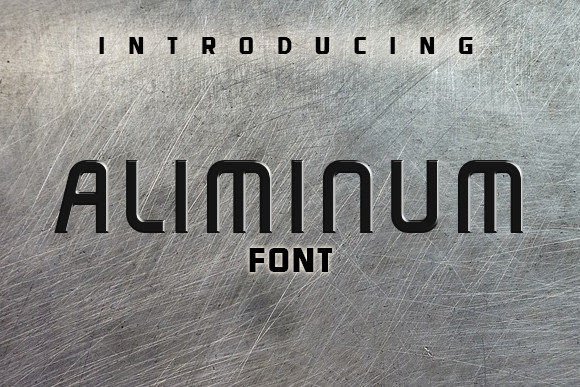
The Ultimate Guide to Aluminum Font: Elevate Your Designs with Style
I’ll never forget the time I was working on a project for a trendy clothing brand, and I just couldn’t find the right font to match their vibe. The client wanted something modern, stylish, and eye-catching, but everything I tried seemed either too bland or too over-the-top. That’s when I stumbled upon the Aluminum font – a game-changer for any designer looking to add a touch of techno chic to their work.
With its sleek lines, round corners, and futuristic feel, Aluminum instantly captured the essence of the brand. I used it for banners, t-shirts, and flyers, and the response was overwhelmingly positive. In this article, I’ll share my love for this gorgeous display font, its features, and how to make the most of it in your designs.
An Honest Review of Aluminum Font
- ✅ Unique Style: Aluminum’s blend of techno and modern elements makes it stand out from more traditional fonts.
- ✅ Versatility: It’s perfect for a wide range of projects, from digital displays to print materials.
- ✅ Easy to Read: Despite its futuristic look, Aluminum remains clear and legible, even at smaller sizes.
- ✅ OpenType Features: It comes with a range of OpenType features, including stylistic alternates and glyphs, allowing for even more customization.
While Aluminum is an excellent font, there are a few things to keep in mind:
- 🤔 Limited Use Cases: Due to its bold and futuristic style, Aluminum might not be the best fit for more traditional or formal projects.
- 🤔 Legibility at Small Sizes: While generally legible, Aluminum’s uniqueness might make it less readable at very small sizes or from a distance.
If you love Aluminum but want to explore other options, here are a few similar fonts and their personalities:
- Orbitron: A futuristic sans-serif with a strong, bold presence. Ideal for headlines and titles where you want to make a statement.
- Montserrat: A sleek, urban font with a geometric look. Great for designs that need a modern, yet approachable feel.
- Exo: A clean, techno font with a wide range of weights. Suitable for both digital and print projects, offering versatility.
- Raleway: An elegant sans-serif with a subtle geometric touch. Perfect for projects that require a bit of sophistication and style.
The Backstory of Aluminum Font
Aluminum was designed with the modern designer in mind – someone who wants to create bold, eye-catching designs without sacrificing readability. The font’s creator aimed to capture the essence of technology and innovation, making it perfect for brands and projects that want to appear cutting-edge.
Q: Is Aluminum suitable for body text?
A: While Aluminum is stunning for headlines and titles, it’s not typically recommended for body text due to its bold and futuristic style. For longer texts, a more traditional font might be more readable.
Q: Does Aluminum support OpenType features?
A: Yes, Aluminum comes with OpenType features, including stylistic alternates and glyphs, allowing for a high degree of customization in your designs.
Q: Can I use Aluminum on both digital and print materials?
A: Absolutely! Aluminum is versatile and works well on both digital displays and print materials, making it a great choice for a wide range of projects.